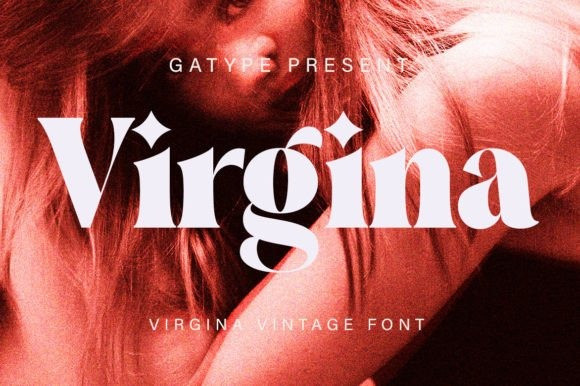
Virgina Font
Virgina Serif Font is a serif font created primarily for publications or display purposes. It can also be used for advertising, vintage mood boards, branding, logotypes, packaging, titles, editorial designs, and modern and vintage designs. This font will add a fun and friendly touch to any of your projects! This font is PUA encoded, which means you can access all the glyphs and sweeps easily!